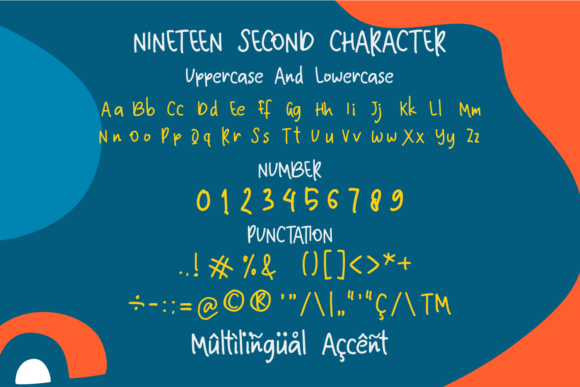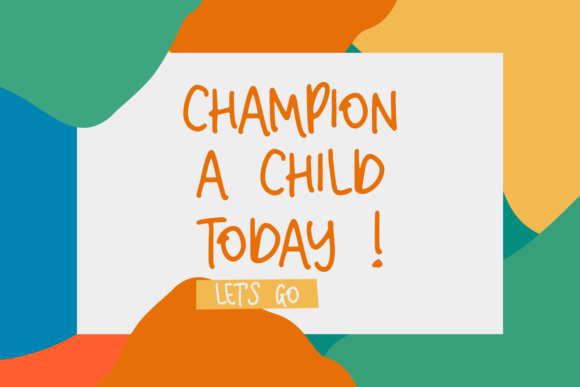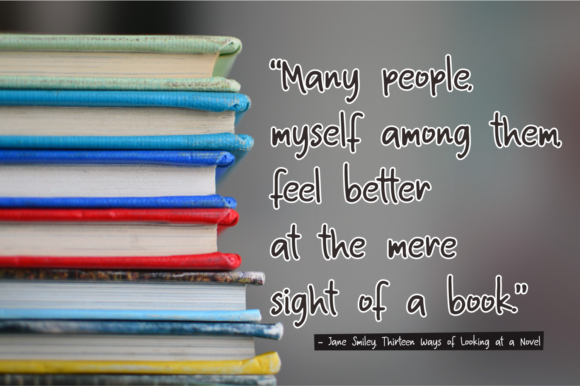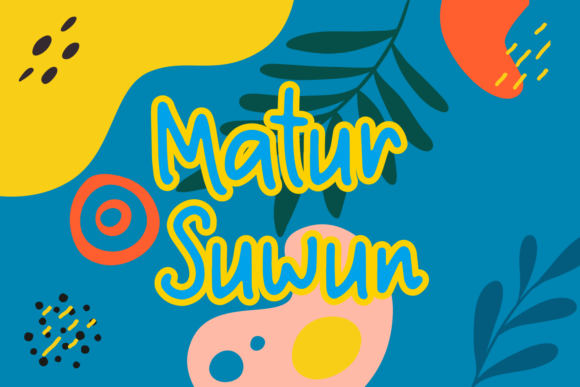
Introduction to Nineteen Second Font
Have you ever been working on a creative project, pouring your heart and soul into the design, only to feel like something’s missing? Maybe you’re trying to convey a sense of warmth and elegance, but your current font just isn’t cutting it. That’s where the Nineteen Second Font comes in – a high-quality script font that’s sure to elevate your design to the next level.
As a valuable design resource, the Nineteen Second Font is a free download that offers a transparent background, allowing you to seamlessly integrate it into your creative project. Its whimsical and relaxed theme makes it the perfect addition to any design, whether you’re working on a wedding invitation, a branding project, or simply a beautiful piece of art.
With its sweet style and versatility, the Nineteen Second Font is an incredibly valuable asset to any designer’s library, and we’re excited to share its details with you.
Key Features of Nineteen Second Font
- High-quality design resource suitable for various creative projects
- Features a unique, modern design with a bold and eye-catching aesthetic
- Supports a wide range of languages, making it a versatile design resource
- Includes scalable vector graphics for high-resolution displays and print materials
Honest Review: Nineteen Second Font
I recently had the chance to work with the Nineteen Second Font, and I must say it’s been a pleasant experience. This free download is a valuable addition to any design resource, perfect for creative projects that require a unique touch.
- ✨ High-quality typography: The font’s crisp lines and smooth curves make it a joy to work with, and its transparent background allows for seamless integration with any design.
- ✨ Versatile use cases: The Nineteen Second Font is suitable for a wide range of creative projects, from branding and marketing materials to digital products and print materials.
However, there are some limitations to keep in mind:
- ⚠️ Limited font styles: The Nineteen Second Font currently offers only a few font styles, which might not be enough for complex design projects.
- ⚠️ Limited language support: The font may not support all languages, which could be a limitation for designers working on projects that require multilingual support.
Overall, I’m impressed with the Nineteen Second Font. While it may have some limitations, its high quality and versatility make it a valuable resource for any designer. With a little creativity, the Nineteen Second Font can elevate even the most mundane design projects to the next level.
Nineteen Second Font
The Nineteen Second Font is a high-quality design resource ideal for creative projects that require a unique and visually appealing typography. This free download offers a transparent background, allowing for seamless integration into various design software.
The Nineteen Second Font is ideal for:
- Brand logos and identity
- Marketing materials and brochures